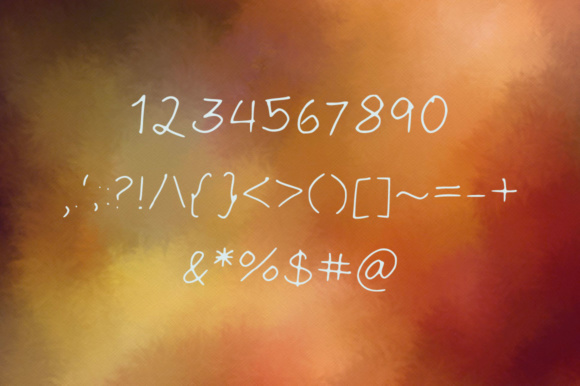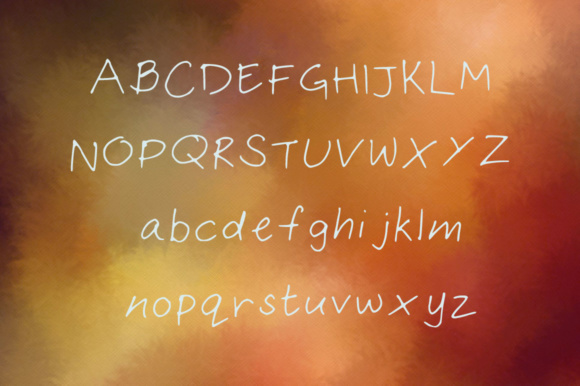
Introduction to Nada Font
As you sit at your desk, staring at a blank page, the creative wheels start turning. You envision a beautiful design that will capture the essence of your brand, but the perfect font has yet to be found. In these moments of design uncertainty, a high-quality font can make all the difference.
Enter Nada Font, a simple yet elegant handwritten font that’s sure to elevate your creative project to the next level. This versatile design resource is perfect for those looking to add a touch of personality to their designs without overwhelming the senses.
Nada Font
- High-quality design resource with a unique, creative style suitable for various projects.
- Comes with a transparent background, allowing for easy customization and blending with other design elements.
- Includes a wide range of characters, including Latin and Cyrillic scripts, making it a versatile choice for global projects.
- Perfect for use in creative projects, such as logos, graphics, and typography, where a distinctive and modern look is desired.
Honest Review: Nada Font
I recently stumbled upon the Nada Font while searching for a high-quality design resource for a creative project. After giving it a try, I was impressed with its clean and modern design.
What works well is the transparent background, which allows for easy customization and versatility. The font is also highly legible, making it suitable for various design applications. Additionally, it’s a free download, which is always a plus in my book.
- ✨ Highly legible and versatile design
- ✨ Transparent background for easy customization
However, I did notice that the font lacks some bold and italic styles, which might be a limitation for designers who require more flexibility. Additionally, the font is not suitable for very large or complex designs, as it may not scale well.
Overall, I’m impressed with the Nada Font, and I think it’s a great addition to any designer’s toolkit. While it may have some limitations, its clean design and transparent background make it a valuable resource for creative projects.
- ⚠️ Limited bold and italic styles
- ⚠️ May not scale well for very large or complex designs
Nada Font
Tips for Getting the Most Out of Nada Font
Here are some tips for getting the most out of Nada Font:
- Use Nada Font on a transparent background to create a seamless design.
- Combine Nada Font with other design elements to create a unique and eye-catching design.
- Experiment with different font sizes and styles to add depth and interest to your design.
Nada Font is perfect for:
- Creating elegant and sophisticated designs.
- Adding a touch of elegance to business cards and resumes.
- Designing custom graphics and illustrations.